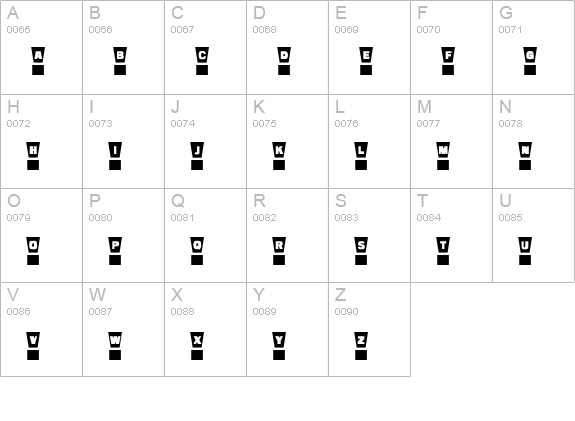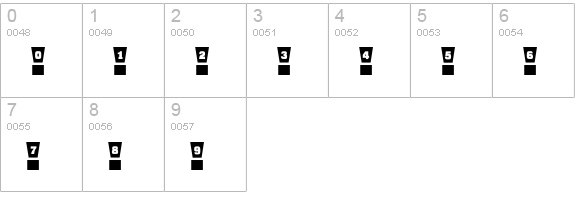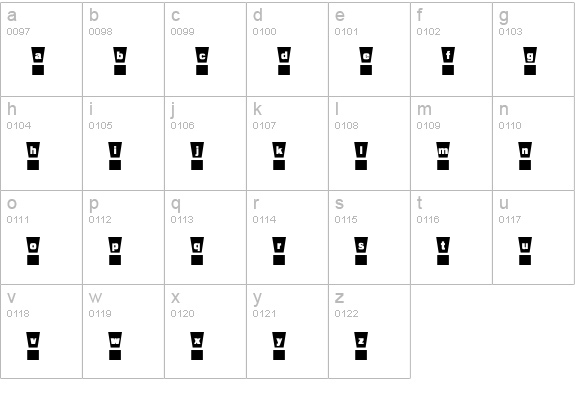
Populist-Exclaim Font Details
Introducing Populist-Exclaim font, a dynamic and attention-grabbing typeface designed to make your messages stand out! With its bold and expressive letterforms, Populist-Exclaim is perfect for creating eye-catching headlines, posters, and social media graphics. This versatile font exudes a sense of energy and enthusiasm, making it ideal for projects that require a touch of excitement and urgency. What's even better is that Populist-Exclaim font is available for free download at FontsMarket.com! That's right, you can easily add this striking typeface to your design arsenal without breaking the bank. Whether you're a seasoned designer or just starting out, Populist-Exclaim font is sure to enhance your creative projects and help you make a bold statement. Download it today and unleash the power of this captivating font in your designs!